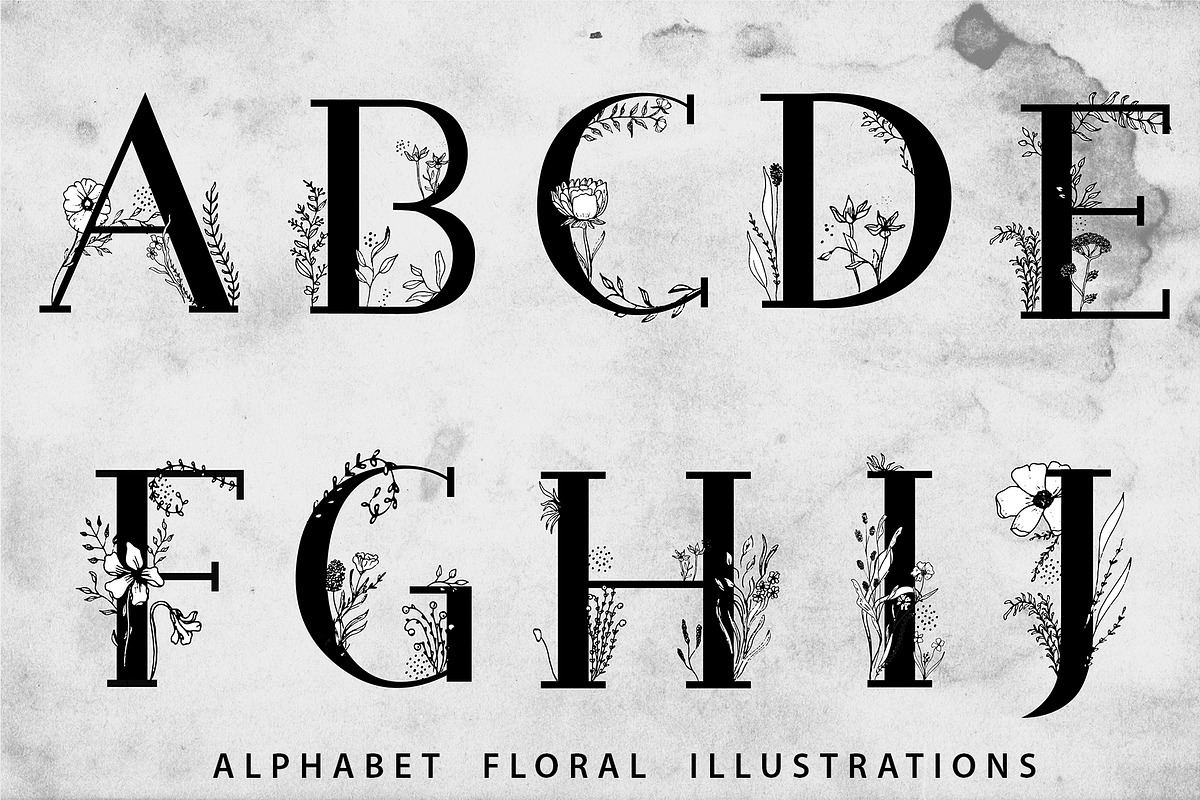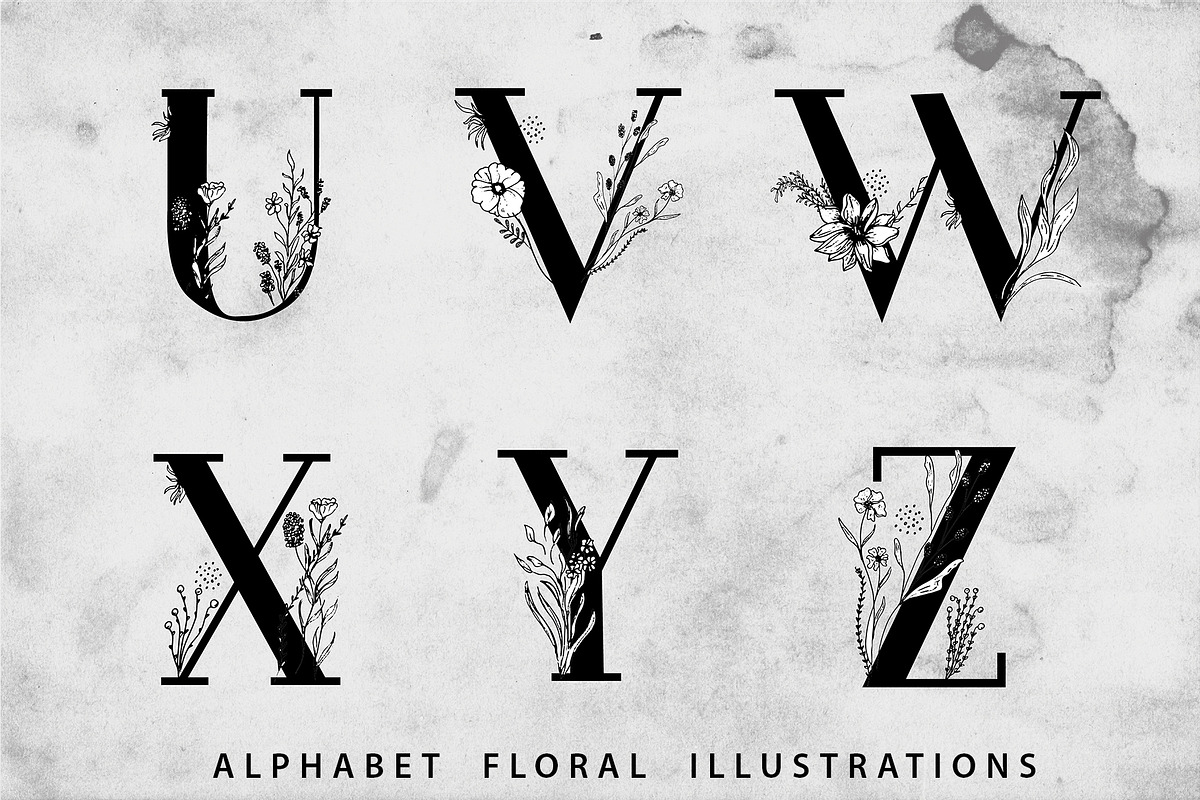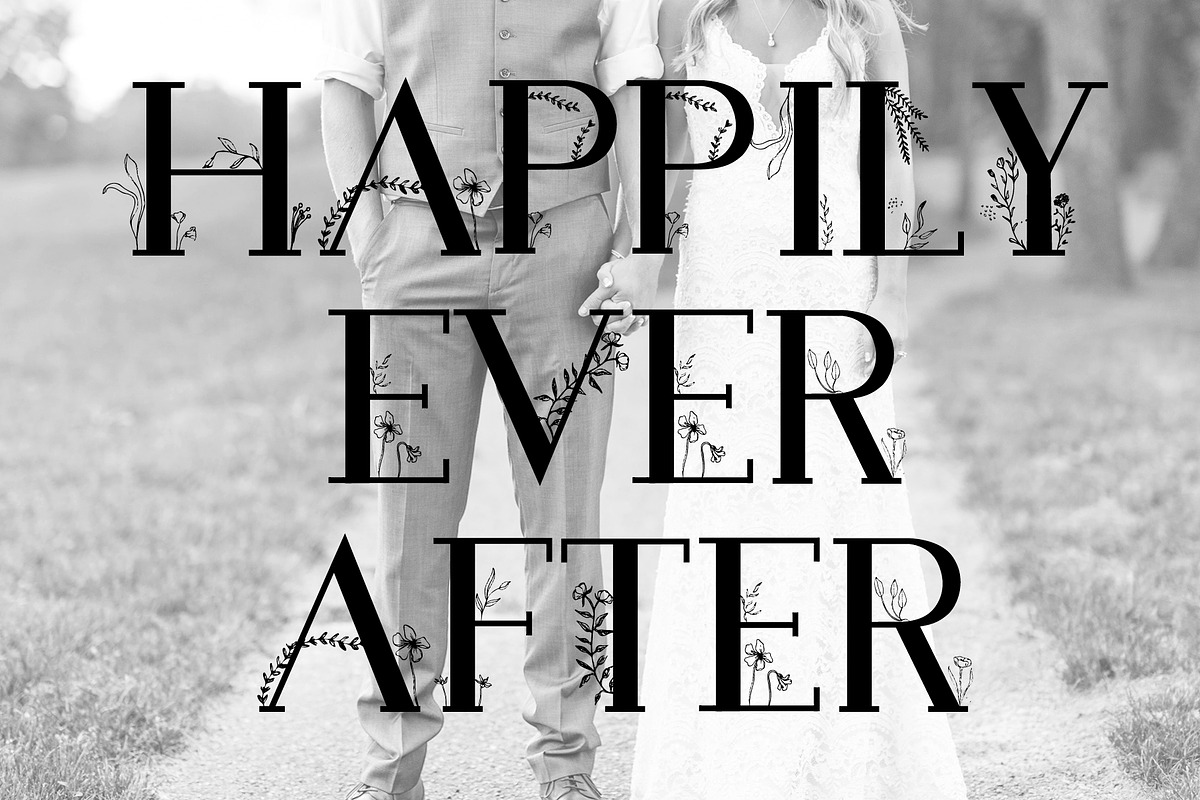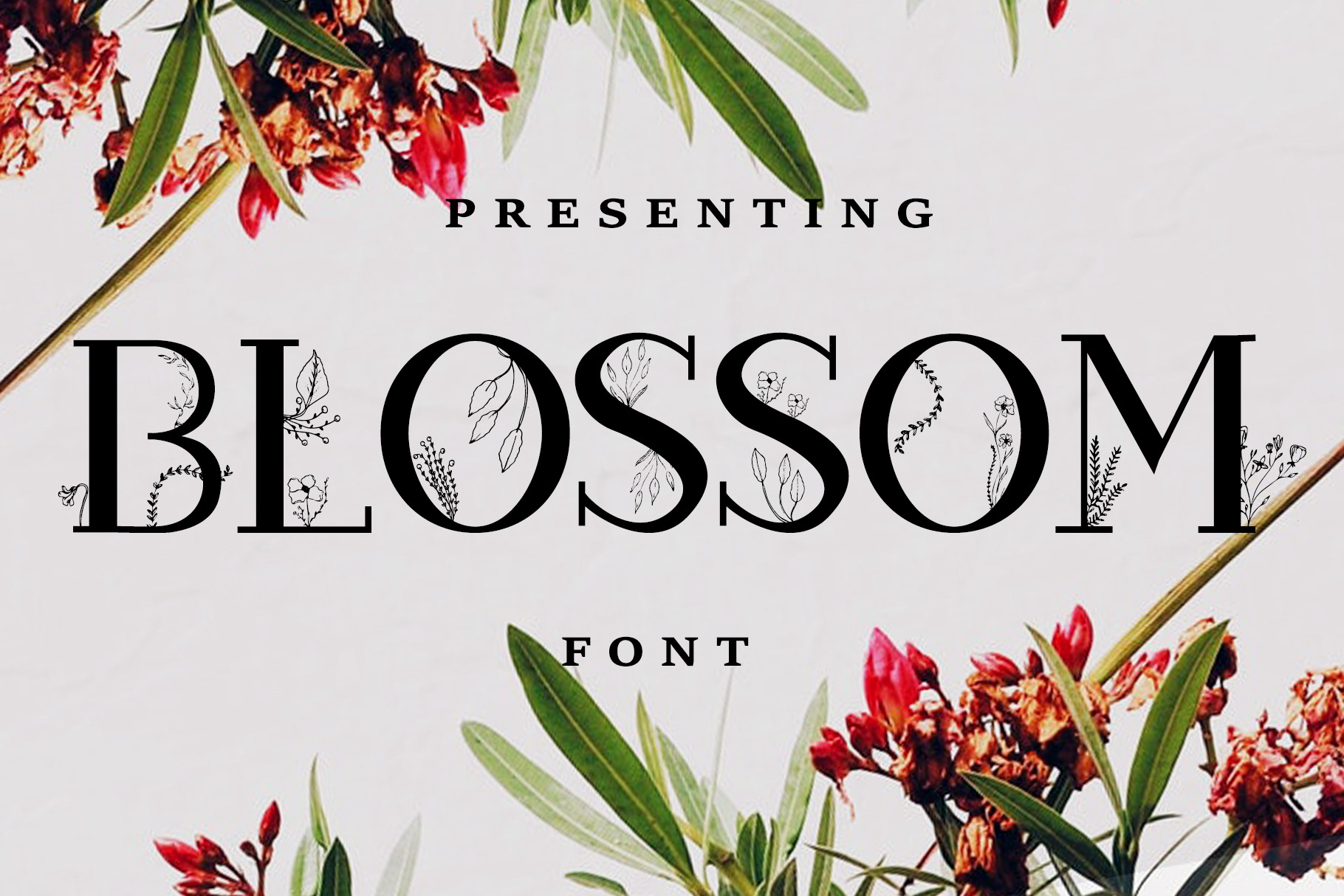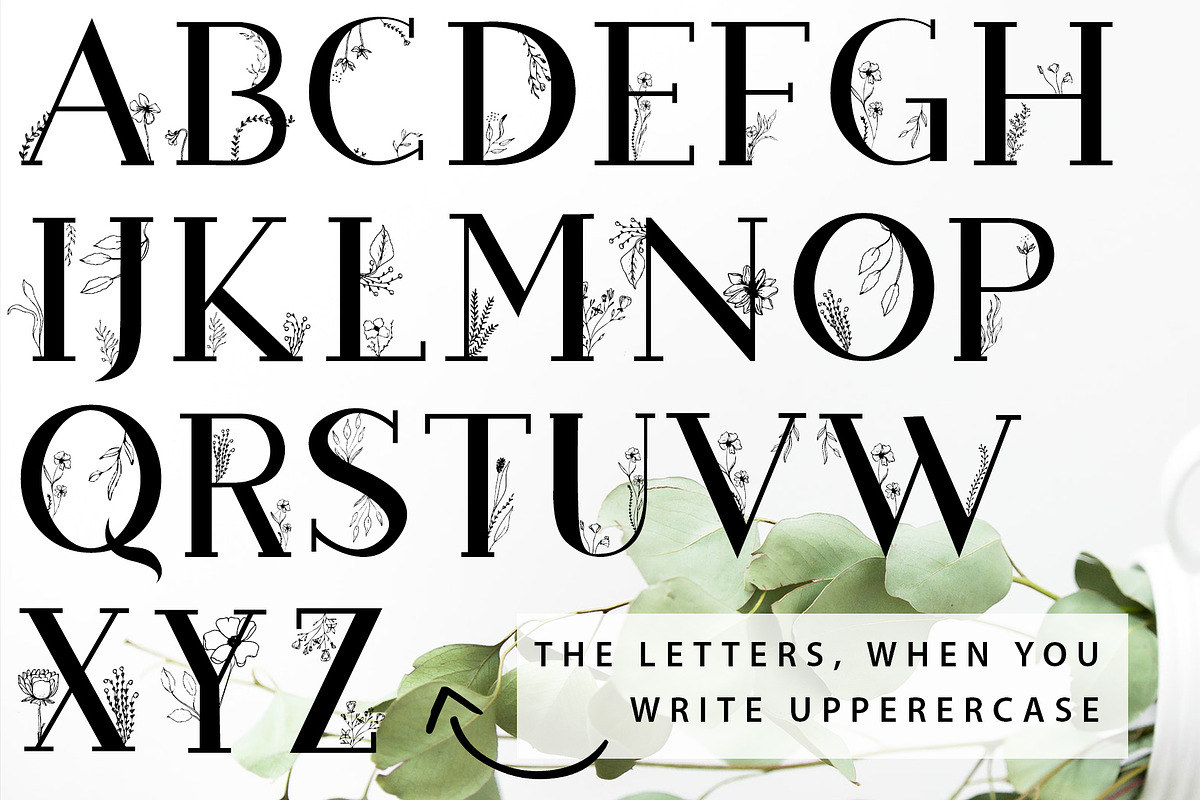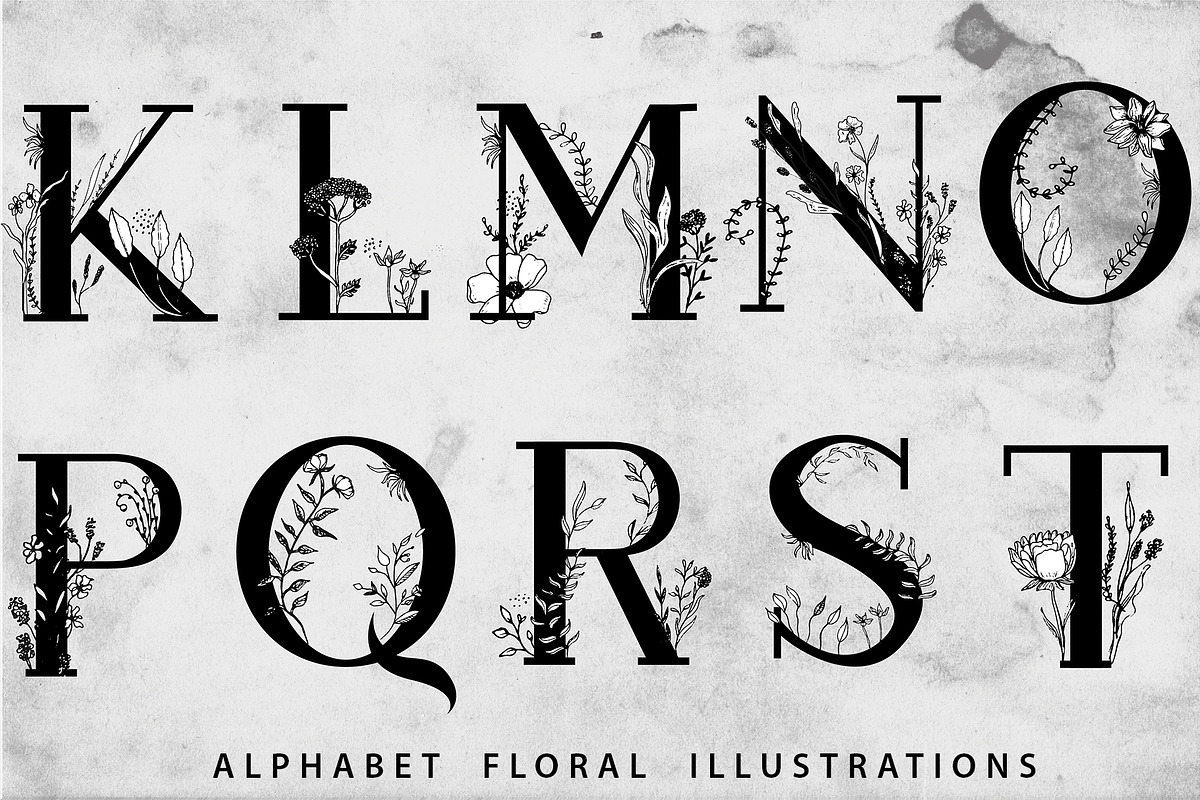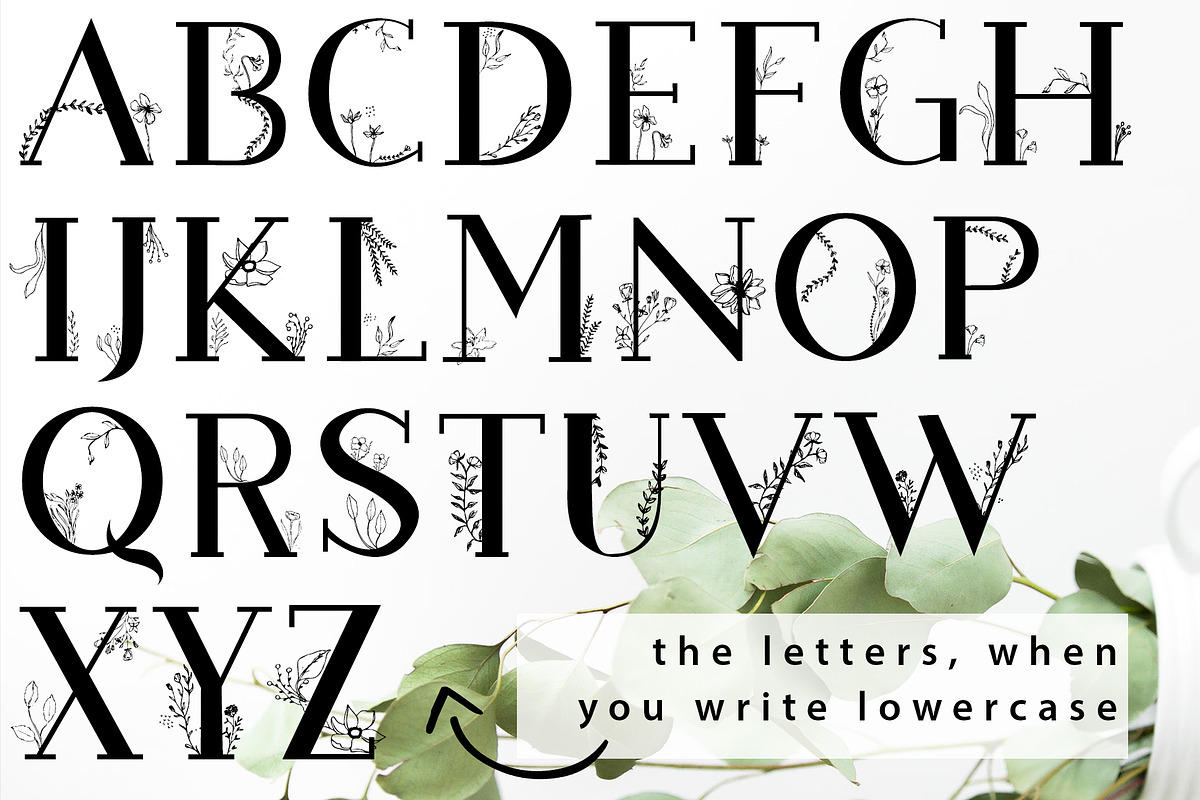
Blossom Font + EXTRAS
Presenting a slab serif floral font - Blossom, packed with lots of extras - hand-drawn & digitized floral elements, '' blooming '' letters & more!
WHAT CAN YOU USE THIS PACKAGE FOR?
The package includes a comprehensive list of sources that fits perfectly together, making it easier for you to create unique projects!
The elegant, eye-catching, and modern look will allow you to make outstanding & dreamy wedding invitations, stylish logos, branding designs, beautiful prints, and cards!
The alphabet elements can be used alone for ornamented initials in texts or combined to produce banners, wedding invitations, (wedding) monograms, greeting cards, life events invitations, print, and many other projects!
The unique HAND-DRAWN foral elements will add an even more unique and pretty look to your designs!
1) Blossom Slab Serif Font
- 2 x 26 alphabet - each letter has 2 DIFFERENT VARIATIONS (when you write the uppercase and the lowercase letters)